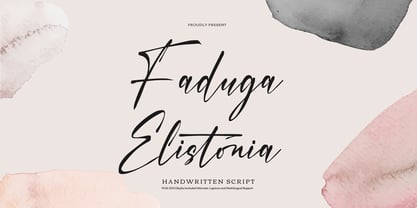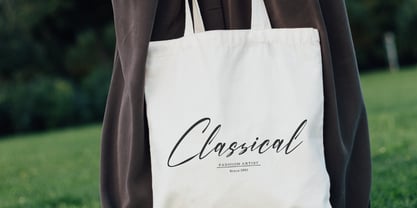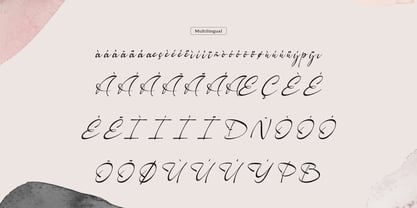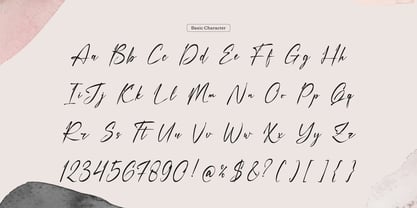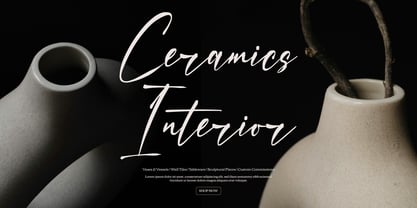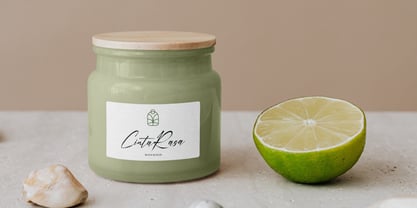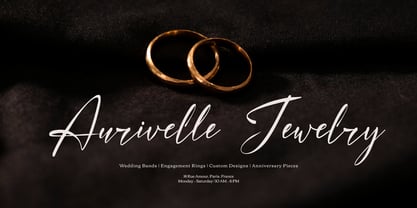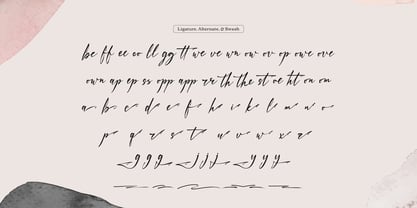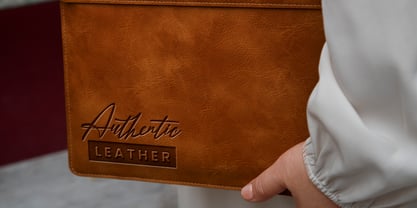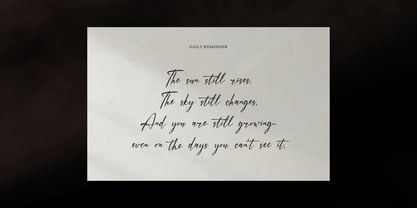
Faduga Elistonia
by Tini Fitriani
The Faduga Elistonia Font Family was designed by and published by Tini Fitriani. Faduga Elistonia contains 2 styles and family package options. More about this family
Faduga Elistonia | Handwritten Script, from Gracetypestudio, suitable for any projects such as: logos, branding projects, homeware designs, product packaging, mugs, quotes, posters, shopping bags, t-shirts, book covers, name card, invitation cards, greeting cards, label, photography, watermark, special events, and all your other lovely projects that need a Handwritten Script taste.